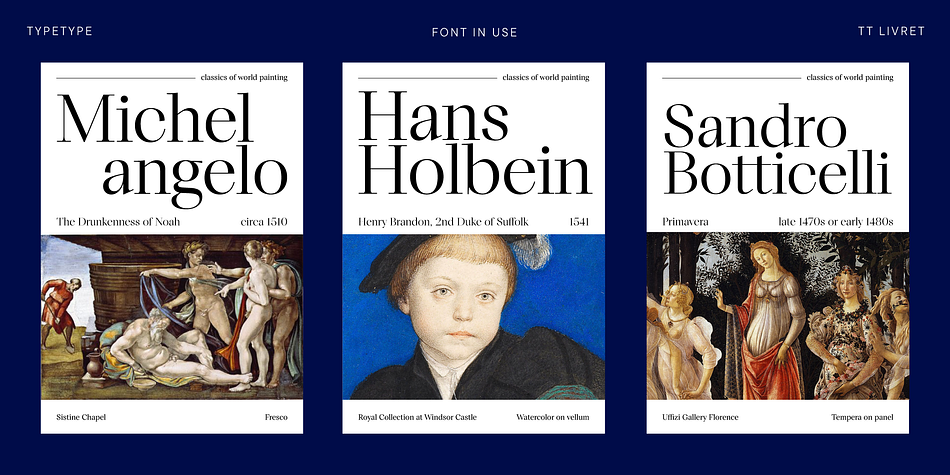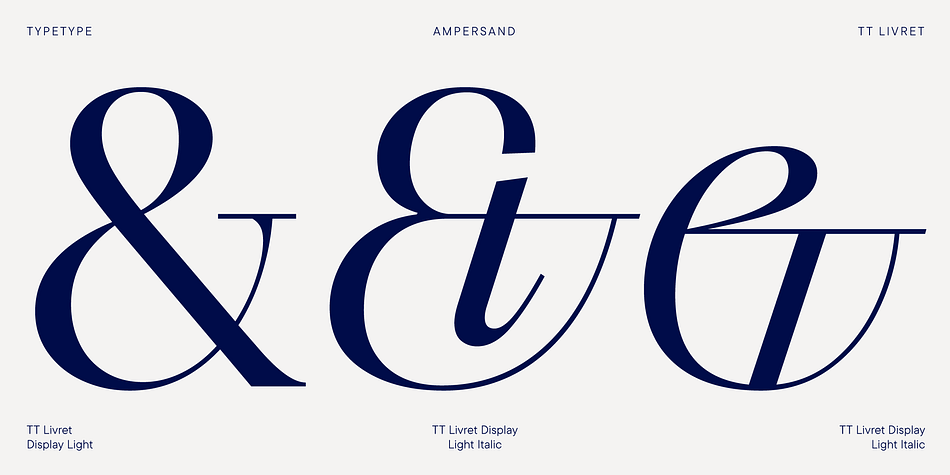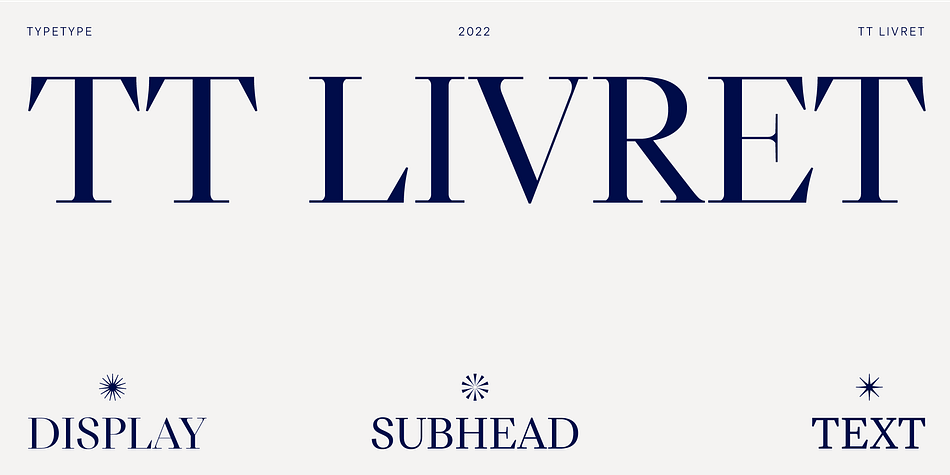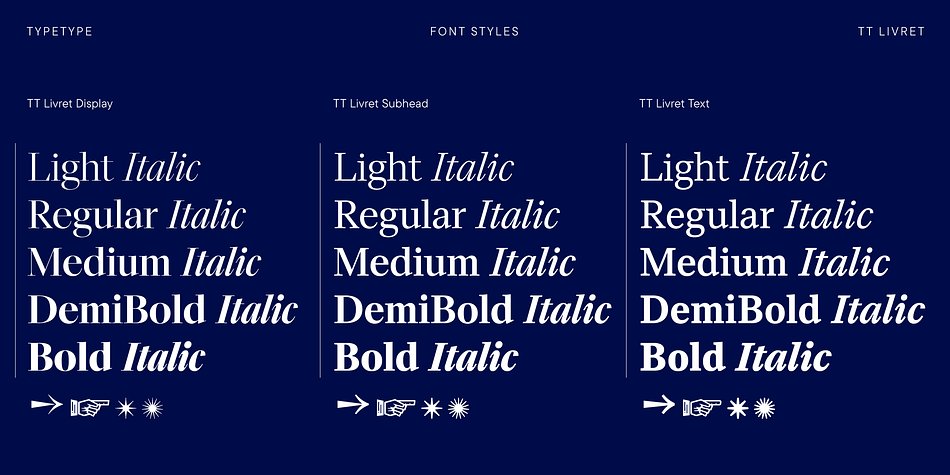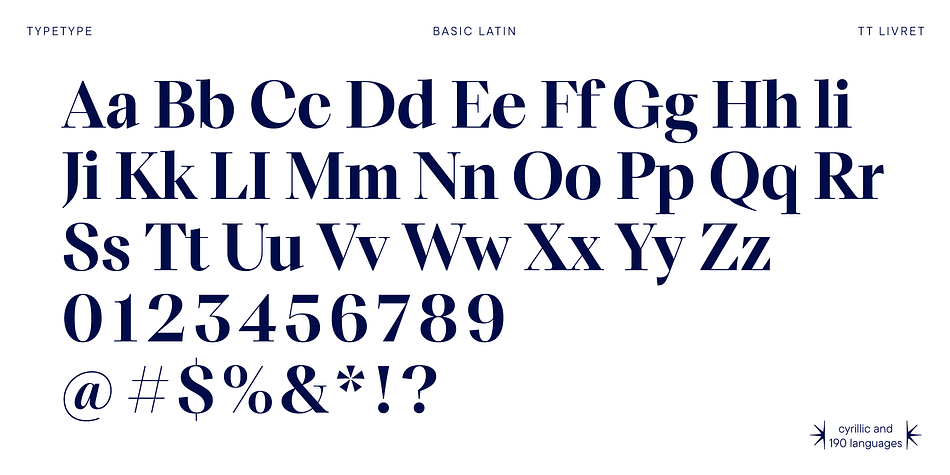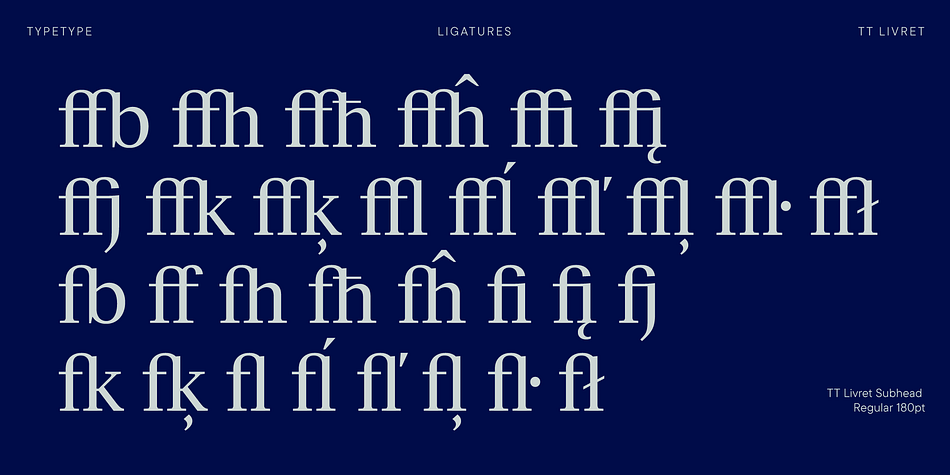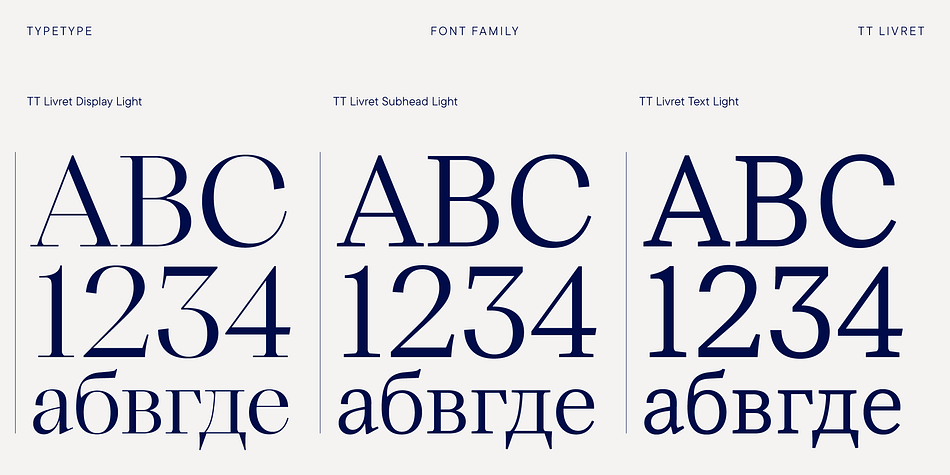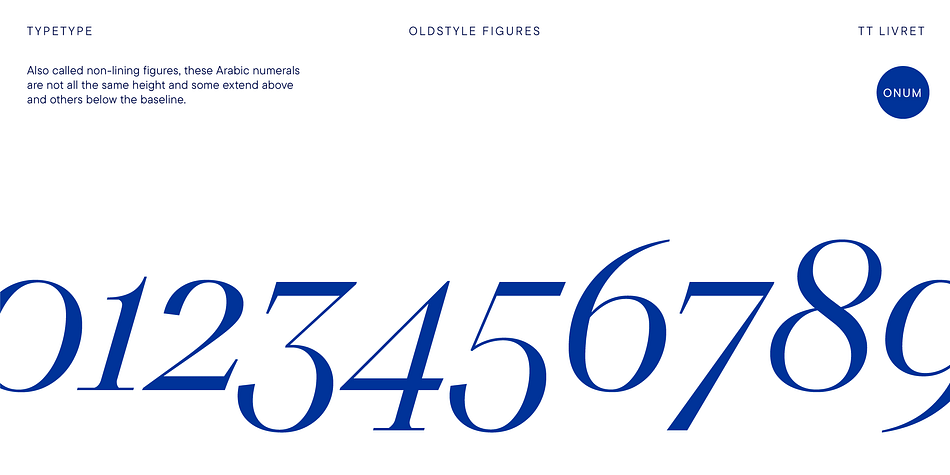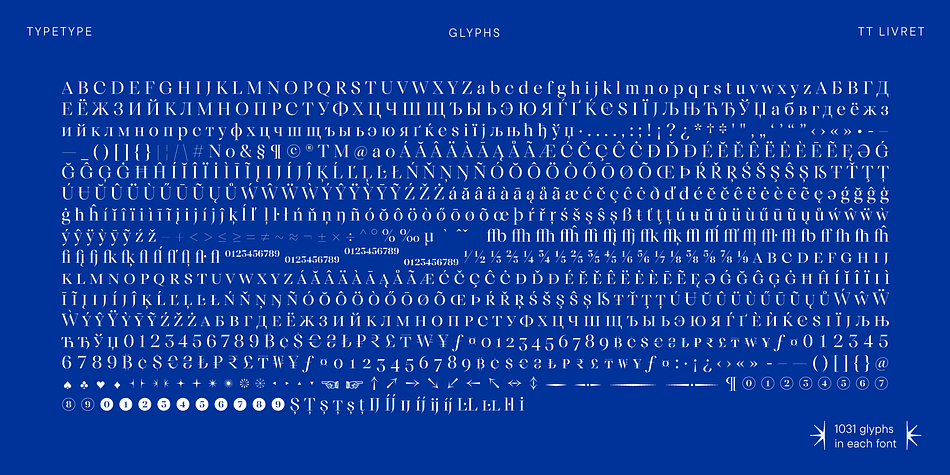
TT Livret
Designed by Yulia Gonina, Anna Tikhonova and TypeType Team, TT Livret is a serif font family. This typeface has thirty-two styles and was published by Typetype.
If you still think that a serif font is a typeface with a strong historical character that difficult to apply in modern realities, meet the new typeface from TypeType!
TT Livret is an elegant, modern and functional serif font featuring a calm text and an expressive display subfamily.
This font looks harmonious in books and other periodicals, on posters or on magazine covers. The scope is not limited to the printing industry, because TT Livret looks aesthetically pleasing wherever text is used.
The text subfamily has uniwidth proportions and a calm spirit, oval round characters, free spacing and more open apertures. The glossy display subfamily is proportional and has round signs that are as close to a circle as possible, the apertures are closed, and the spacing is dense. The font has an intermediate subfamily - Subhead, which can look more relaxed when used as text font, or be contrasting and used as a display font.
In TT Livret, we have embodied the idea of a serif font that will be comfortable to use in modern realities. This is a functional font, where the text face does not distract from reading, and the display face, on the contrary, attracts attention.
The TT Livret font family consists of 32 faces: 15 upright, 15 oblique, and 2 variable fonts.
Each face has 1031 glyphs. The font contains 26 OpenType features, as well as a large number of ligatures. There are many alternative characters in italics, which are especially diverse in Cyrillic.